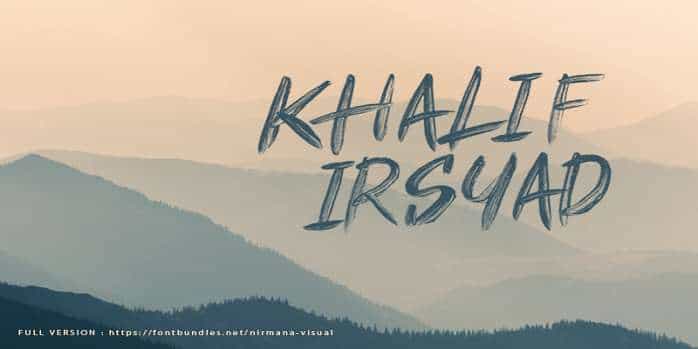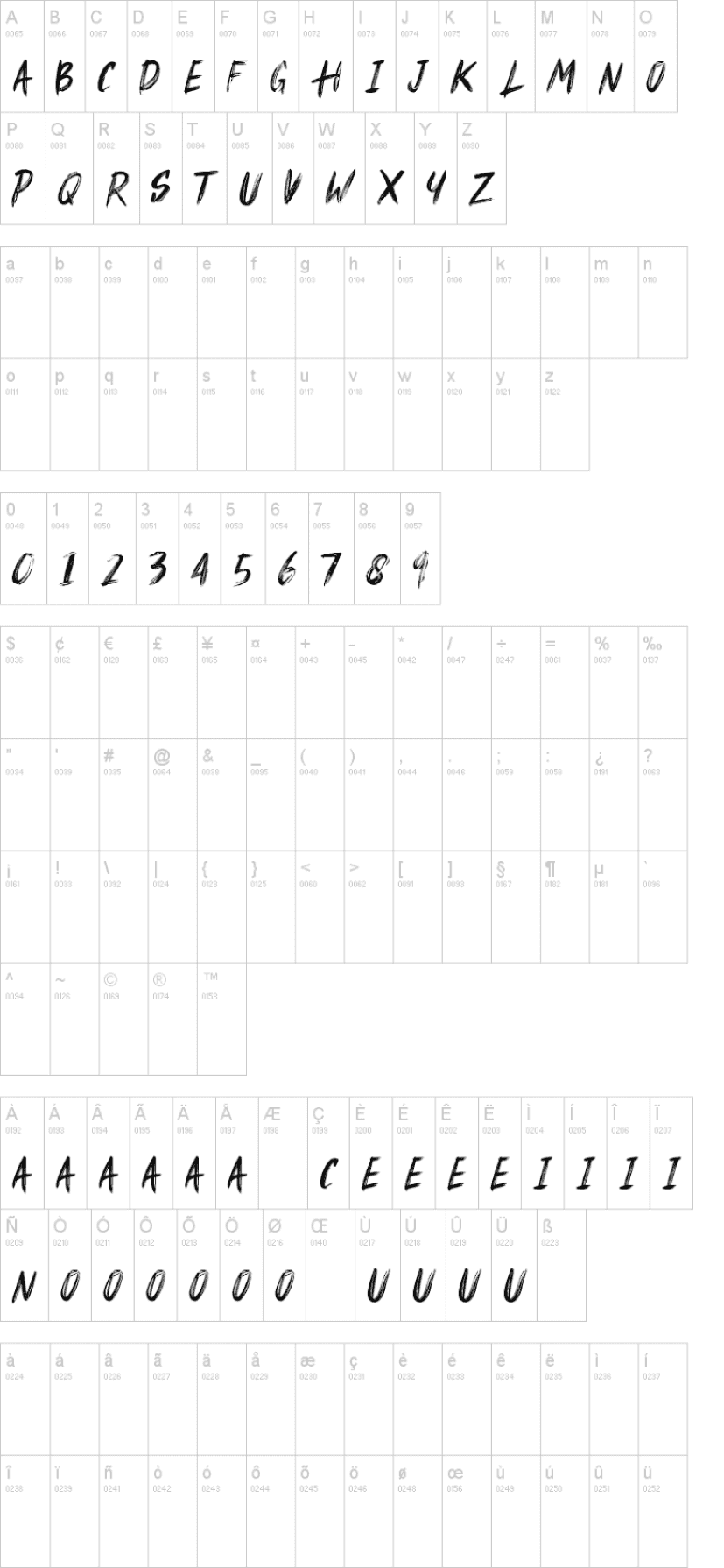
Discover Khalif Irsyad Font, part of the Brush collection—a versatile and unique font perfect for adding a personal touch to your projects. Download it for free and enjoy crafting designs with style, from invitations to social media posts. This font is available exclusively for personal use, giving you the freedom to create without limits. Unlock your creativity with Khalif Irsyad Font today!
Khalif Irsyad is a high quality font that is classified under Brush font category and it is made by Nirmana Visual, where you can download it for free for personal use only. Free version offers all the alphabets in both upper and lower cases and a few other symbols as well.